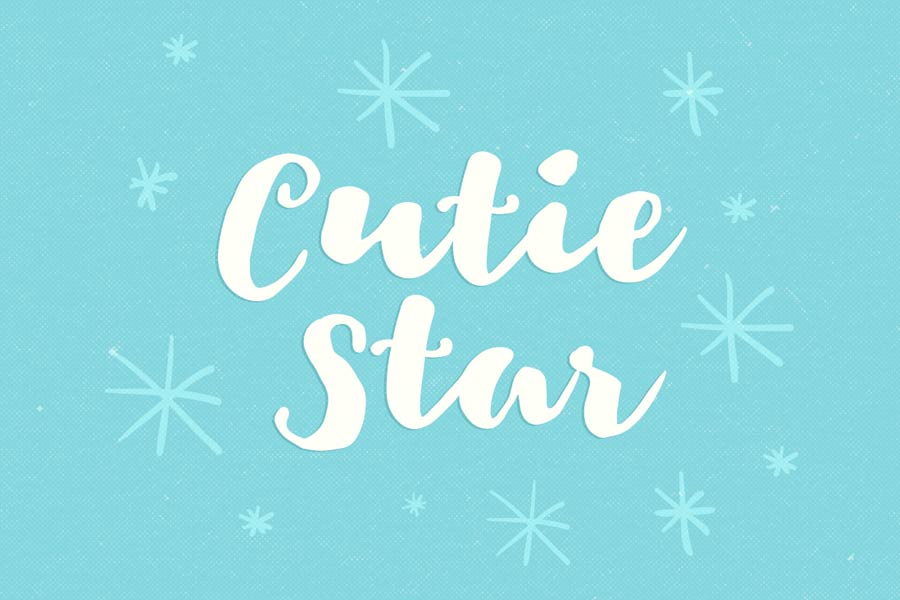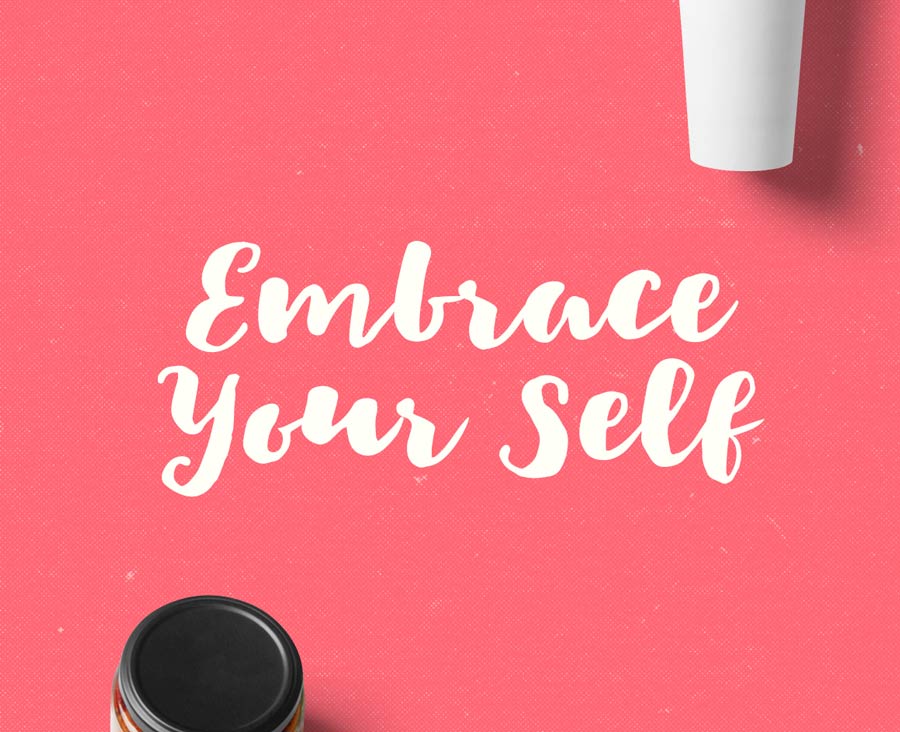
Cutie Star is a free brush font that was hand drawn with thick brush. This font has irregular baseline and resembles natural hand writing. This font is great for typography posters, invitation cards, quotes, packaging designs for both print and digital.